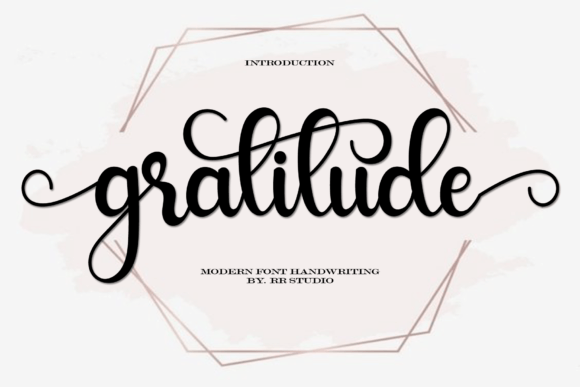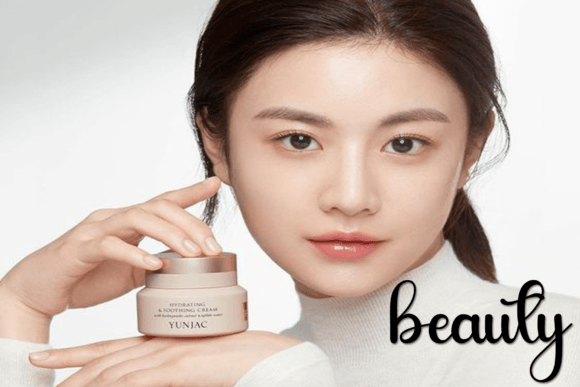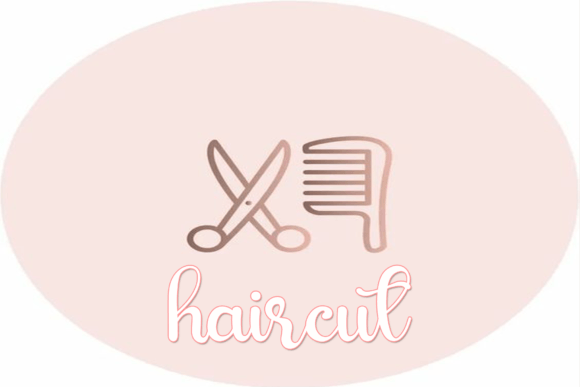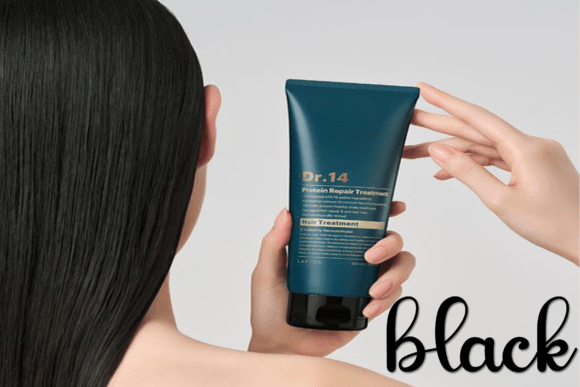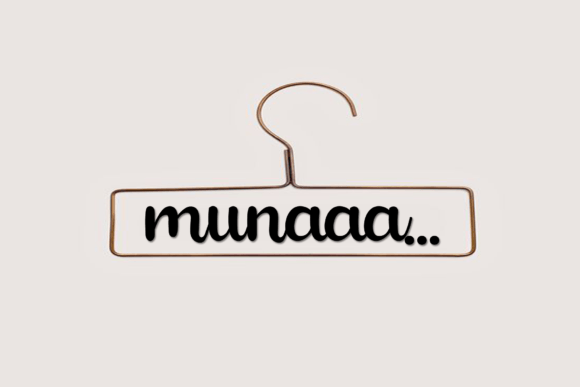
Gratitude Font
Express Style with Gratitude Font
Gratitude Font is a timeless and casual handwritten script, drawn in a free-spirited, random style that mimics natural handwriting. With its relaxed yet confident strokes, this font introduces a warm and approachable tone to your designs. Whether you’re working on branding or casual graphics, Gratitude is designed to bring authenticity and style to every project.
A Handwritten Script with Personality
Crafted with artistic freedom in mind, Gratitude Font captures the charm of handwriting that is simple yet full of expression. It’s slightly irregular, giving it a handcrafted, personal touch that sets it apart from more structured fonts. This makes it ideal for projects where a human feel is essential.
You can confidently use Gratitude Font in:
• Logos and brand identity
• Apparel and merchandise design
• Posters, album covers, and YouTube thumbnails
• Book titles, comic headers, and magazine layouts
• Instagram quotes and website banners
• Creative presentations and mood boards
Its versatile look adapts easily across digital and print applications, keeping your work engaging and memorable.
Built for Creativity
Gratitude Font is not just stylish—it’s also highly flexible. It works seamlessly in large formats for eye-catching headlines or as a secondary font to add personality to supporting text. This handwritten script balances legibility with character, giving you the freedom to explore different moods in your projects.
If you’re designing for modern brands, social campaigns, or storytelling visuals, Gratitude Font fits right in. The natural flow of its characters offers a sense of motion and life, while its clean simplicity ensures your message comes through clearly.
Why Download Gratitude Font?
Choosing the right font sets the tone for your entire project. Gratitude Font brings an inviting, handcrafted feel that resonates with audiences. Its subtle quirks and human touches make designs feel more relatable and approachable.
This font is perfect for those looking to break away from rigid, sterile typefaces. It helps build personality in your designs without overwhelming the content. Whether you’re creating for fun or for clients, Gratitude Font will become a go-to option in your creative toolkit.